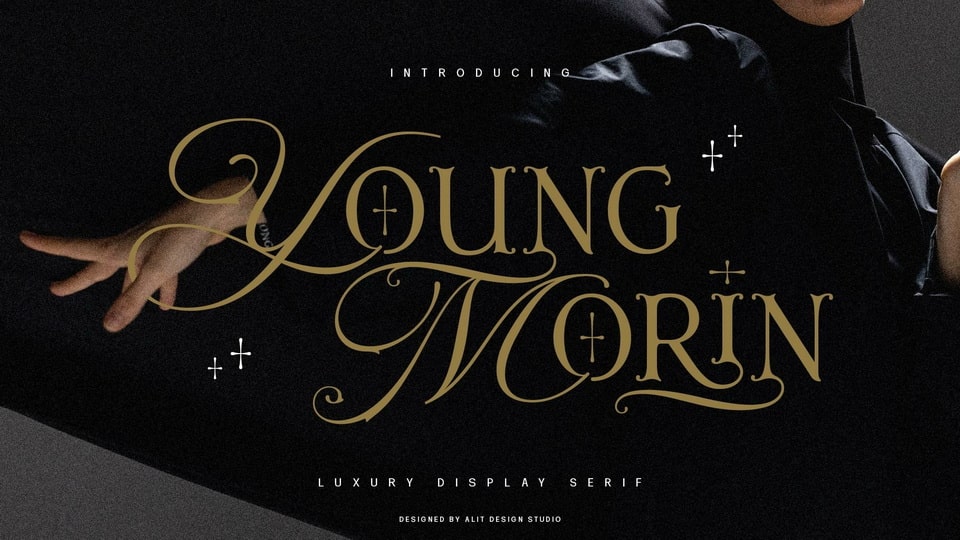
Download Young Morin font, a stunning display typeface designed by combining elegant script with a classic serif. Young Morin font is inspired by a classic roman design mixed with modern elements according to current trends.